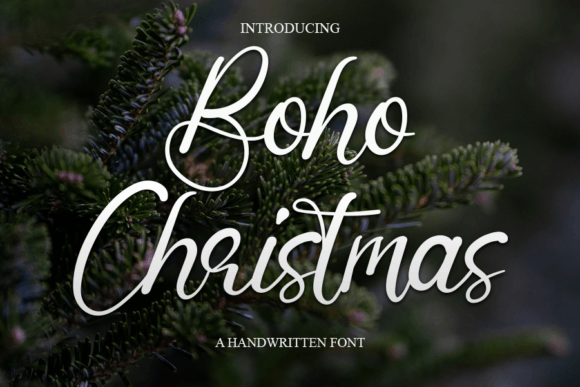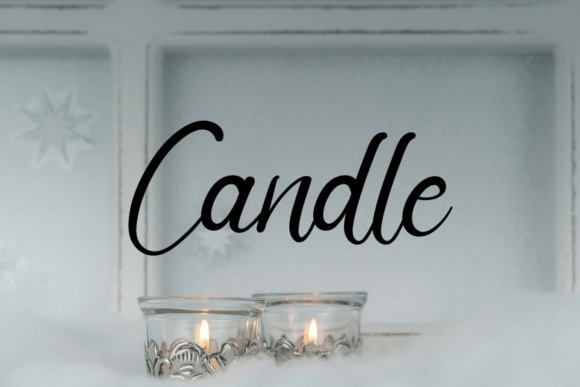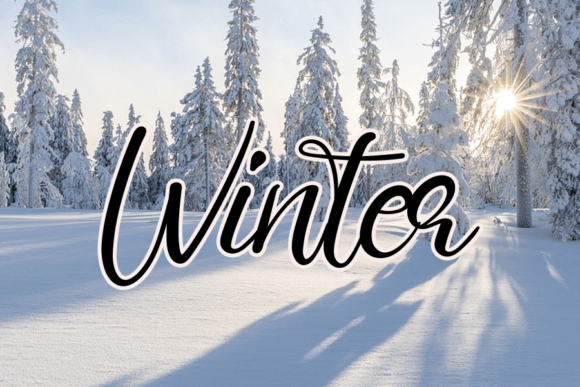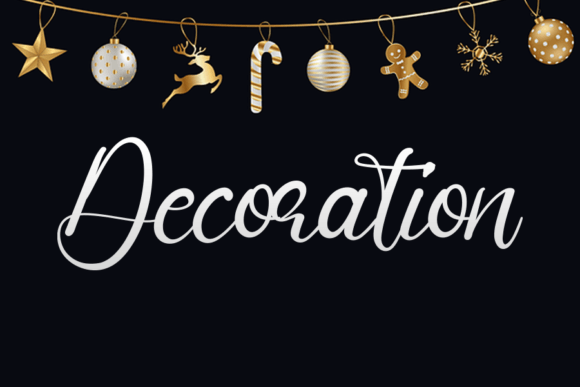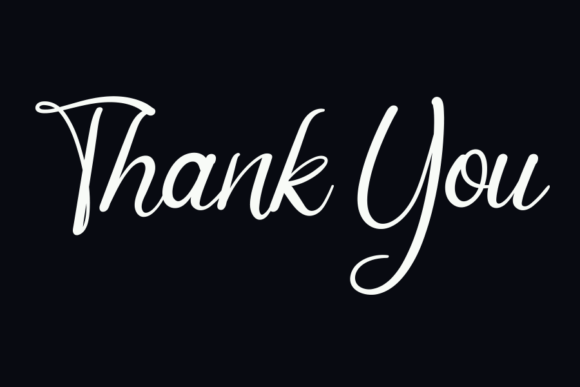
Boho Christmas Font
Boho Christmas Font is a delightful and approachable handwritten typeface crafted to infuse your holiday projects with charm and cheer. Its playful and smooth character strokes bring a warm and personal feel to every design, making it perfect for festive occasions and cozy creations.
This font embraces simplicity and friendliness, helping your designs stand out while maintaining a relaxed and joyful tone. Whether you’re crafting holiday cards, designing seasonal products, or adding decorative flair to printables, Boho Christmas Font will quickly become a staple in your creative toolkit.
Boho Christmas Font is incredibly versatile and works well in many festive and casual applications, including:
• 🎄 Holiday Cards & Invitations – Give your seasonal greetings a handmade, heartwarming look
• ✂️ Craft Projects – Great for Cricut crafts, handmade gift tags, and Christmas scrapbooks
• 🖥 Digital & Social Media – Add a cozy touch to Instagram posts, blog banners, or newsletters
• 🎁 Product Packaging & Labels – Ideal for custom wrapping paper, stickers, or small business branding
• 📜 Printables & Posters – Use it in advent calendars, wall art, or festive menus
• ✍️ Handwritten Style – Friendly curves and casual rhythm that evoke joy and authenticity
• 🧑‍🎄 Seasonal Spirit – A subtle boho vibe perfect for winter and Christmas-themed work
Celebrate the season in style with Boho Christmas Font—a cozy and creative handwritten typeface made for heartfelt messages and festive designs. Its simple elegance and warm personality will help bring your holiday vision to life.